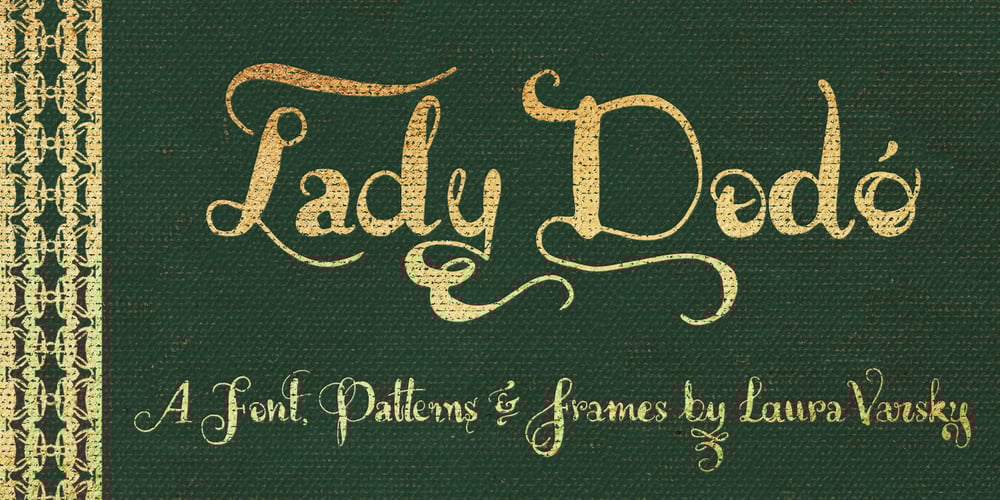
Lady Dodo Font Family was designed by Alejandro Paul, Laura Varsky and published by Sudtipos. Lady Dodo contains 2 styles and family package options. And the day in which I introduce my second typographic family has arrived. In order to do this, I borrowed several passages from this beautiful book by Maurice Maeterlinck, “Life and Flowers”. His poetic observation of Nature made me reflect about the small discoveries behind the flow of my pen on paper. About that quick, spontaneous, overwhelmed stroke, with some awkwardness as well as certainty in it. About the writing that looms line after line. About the mischievous stains of ink flooding my writing tool. Lady Dodó was born as a product of these drawings, pieces of writing and reflections. Following the steps of its ancestor and friend, Lady René, it takes advantage of the goodness of the Open Type technology to propose a systematized as well as a personalized writing font. Both friendly and challenging. Due to the large number of alternate characters (both for lower and upper case as well as for numbers) and to its precise programming, it proposes to design diverse and rich typographical sets with multiple strokes in a simple way. However, Lady Dodó is not just made of typographical signs; it also proposes a set of modules to make patterns and another one to design frames. From the combination of these modular signs, an infinite universe of possibilities for decoration arises. Here is Lady Dodó, ready to get started and write its destiny. July 2015.